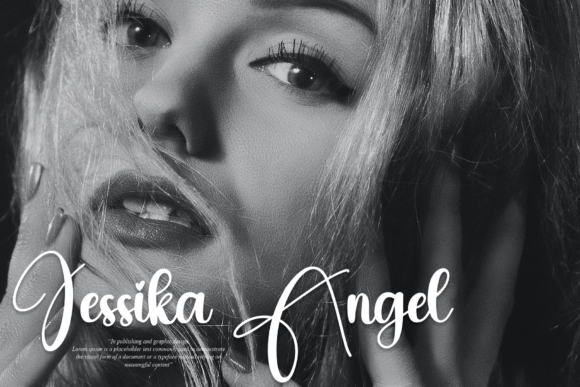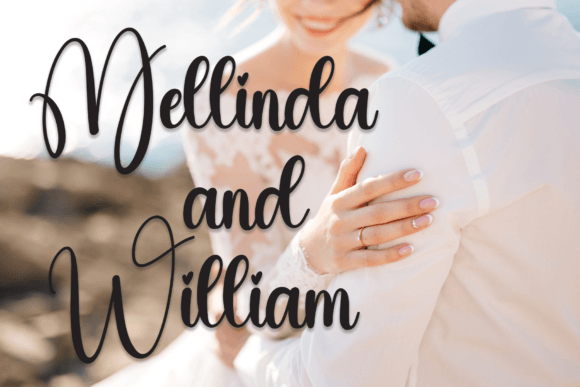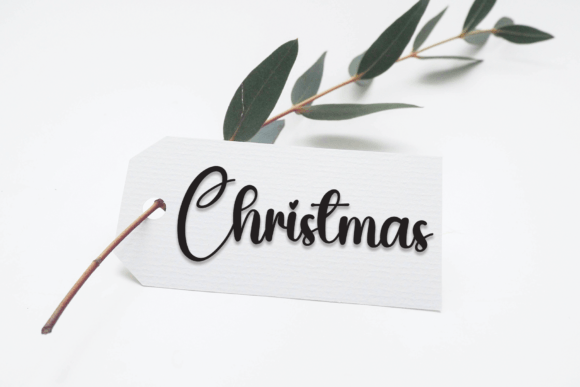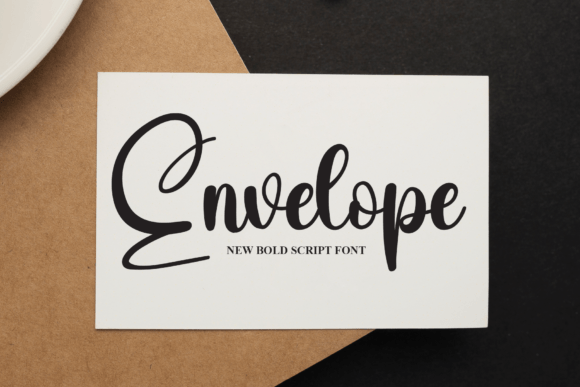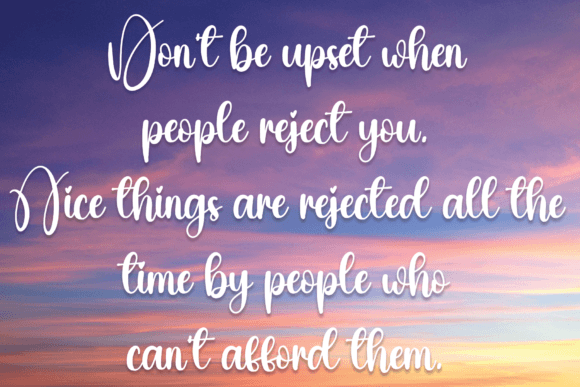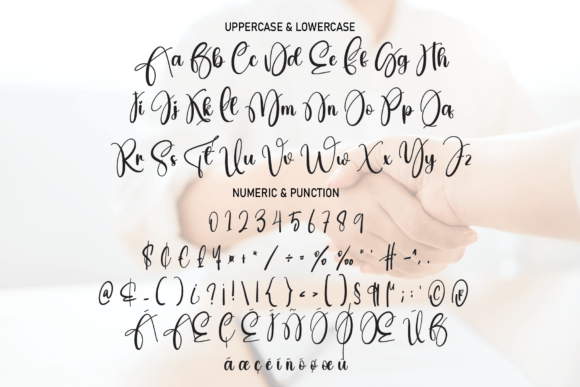
The Agree Font: A Designer’s New Best Friend
I’ll never forget the time I was working on a project for a trendy boutique hotel, and I just couldn’t find the right font to capture their playful yet sophisticated vibe. The client wanted something that would pop on their signage and marketing materials, but still feel approachable and artistic. That’s when I stumbled upon the Agree Font, and let me tell you, it was love at first sight! 💕
So, what makes the Agree Font so special? Here are a few things I love:
- ✨ It’s perfect for bold titles and flashy banners – it instantly adds a touch of personality to any design!
- ✅ The artistic and casual look is exactly what I need for posters, magazine covers, and logo design.
- ✅ It’s surprisingly versatile – I’ve used it for everything from wall art to social media graphics.
Of course, no font is perfect, and there are a few quirks to keep in mind:
- 🤔 It can be a bit overpowering if you’re not careful – make sure to balance it with some clean, simple fonts.
- ⚠️ Some of the more intricate details can get lost at smaller font sizes.
Exploring OpenType Features
One of the best things about Agree Font is its OpenType features. With a little practice, you can unlock a whole world of creative possibilities:
- Glyphs: These special characters can add an extra layer of personality to your design. Try using them to create custom icons or graphics.
- Stylistic Alternates: These alternate characters can help you mix things up and create a more dynamic design. Experiment with different combinations to find the perfect look.
The Story Behind Agree Font
While the exact origins of Agree Font are a bit fuzzy, it’s clear that it was designed with creativity and self-expression in mind. Whether you’re a professional designer or just a crafty hobbyist, this font is all about embracing your unique style and having fun with design.
| Is Agree Font suitable for body text? | While Agree Font is stunning for headlines and titles, it may not be the best choice for body text. It’s a bit too ornate for long blocks of text. |